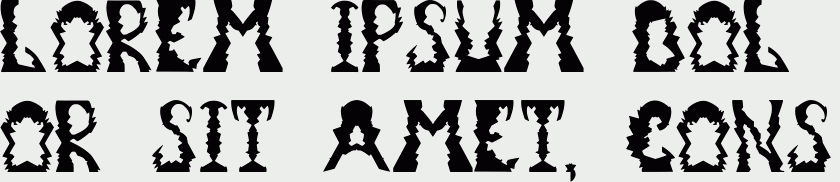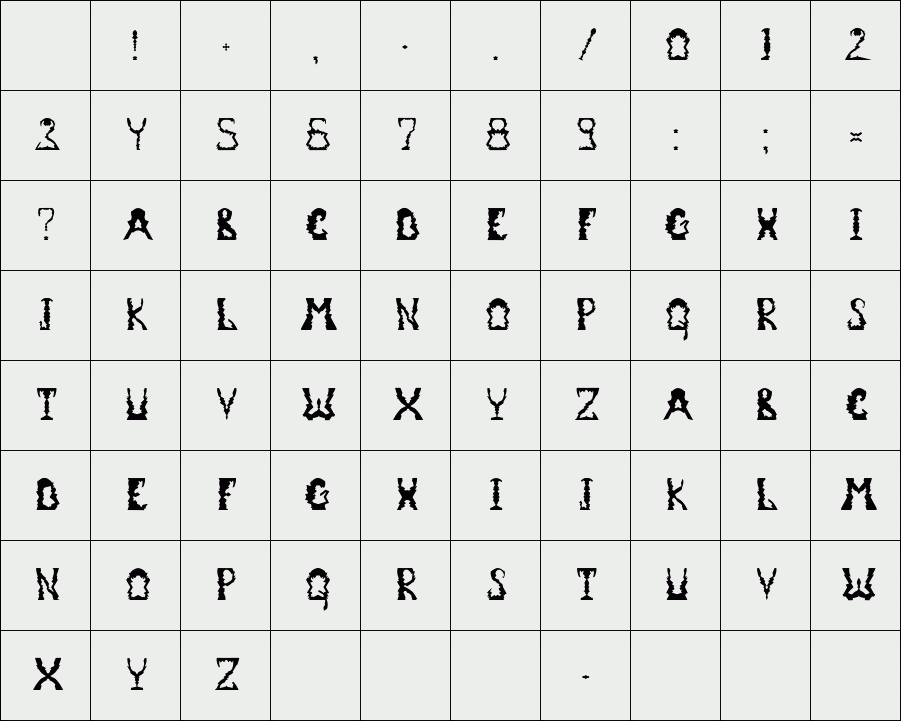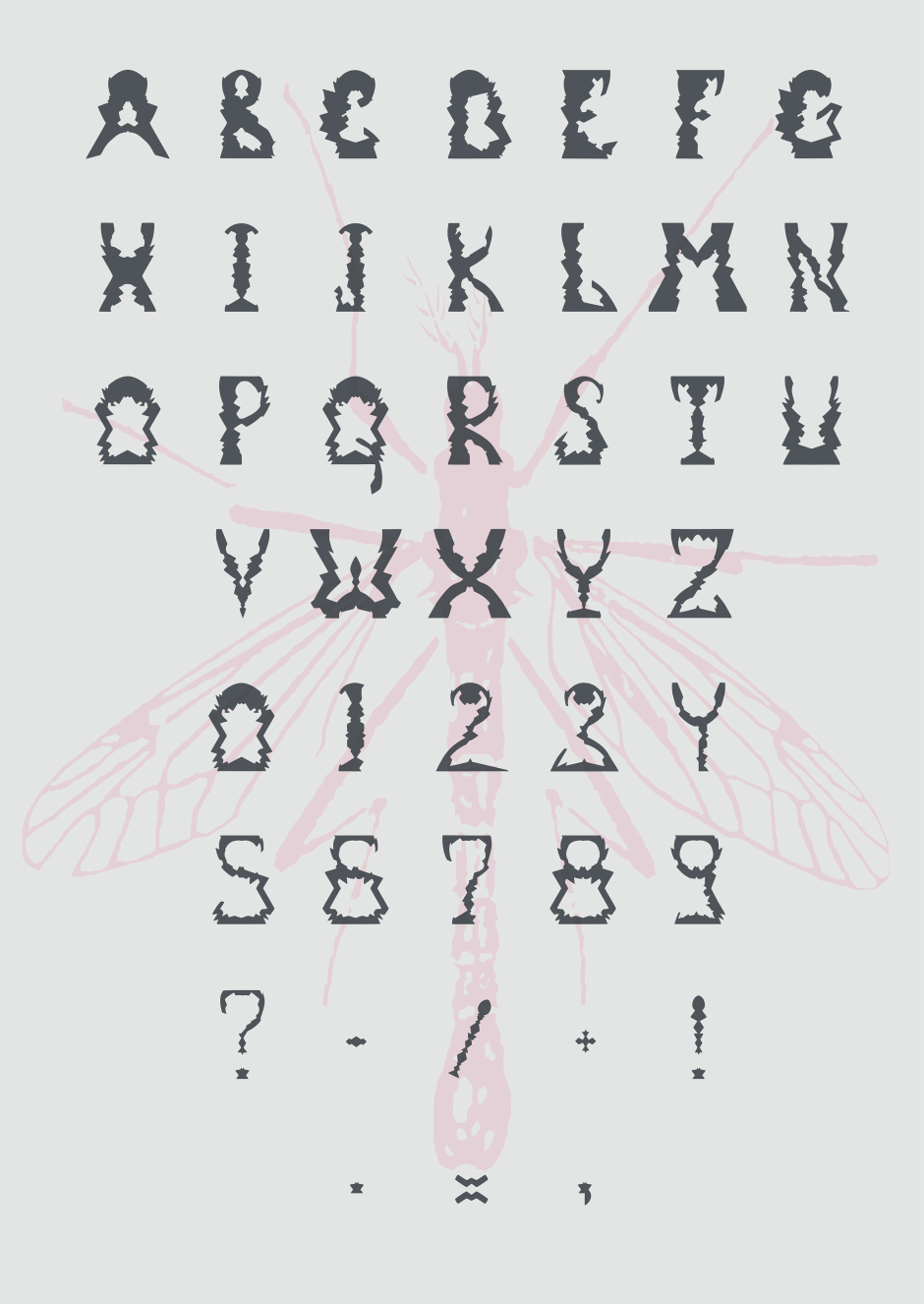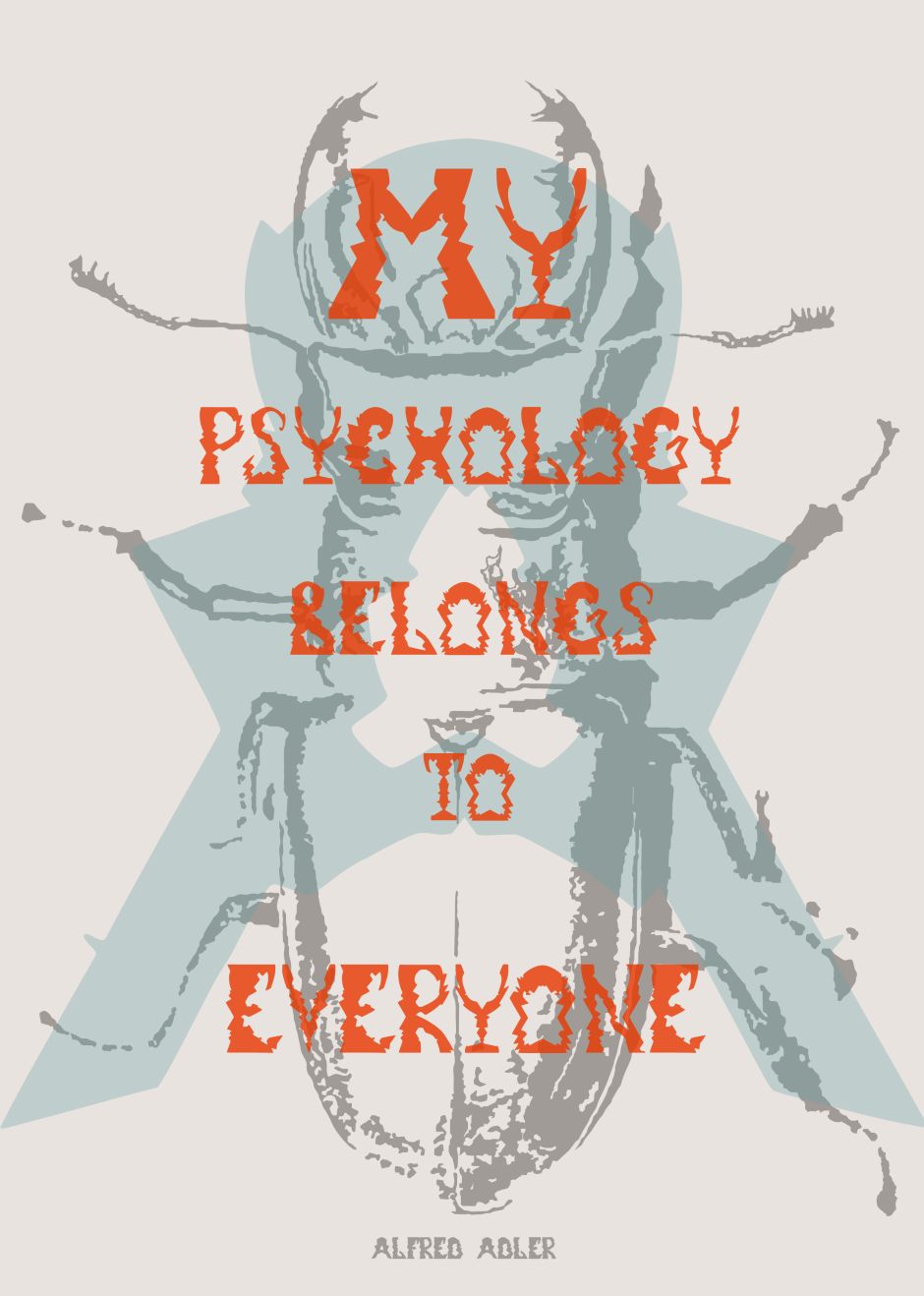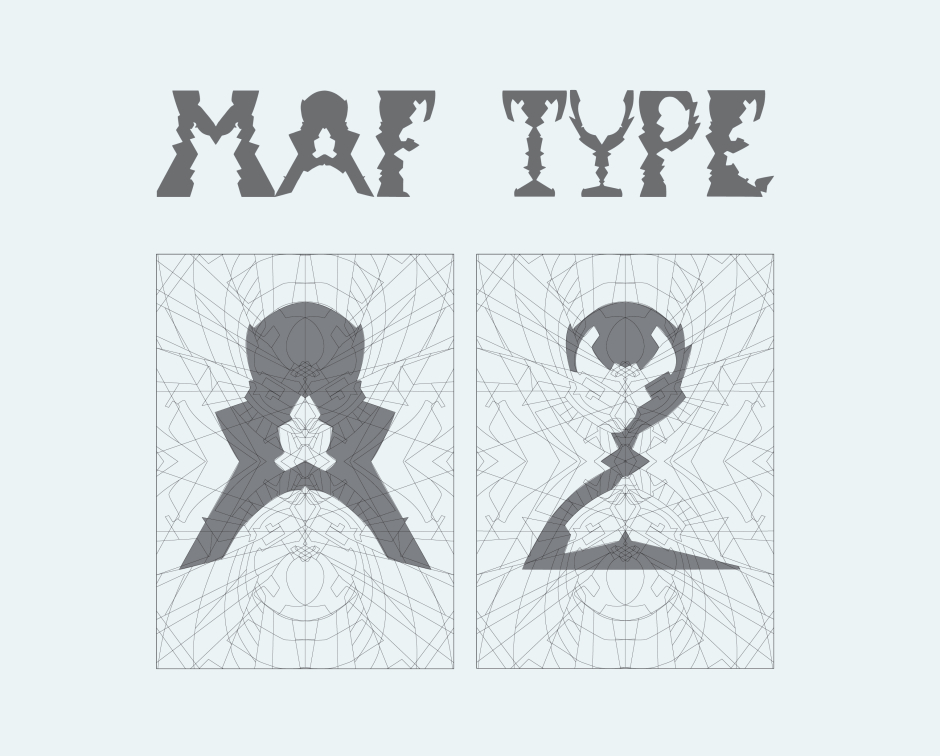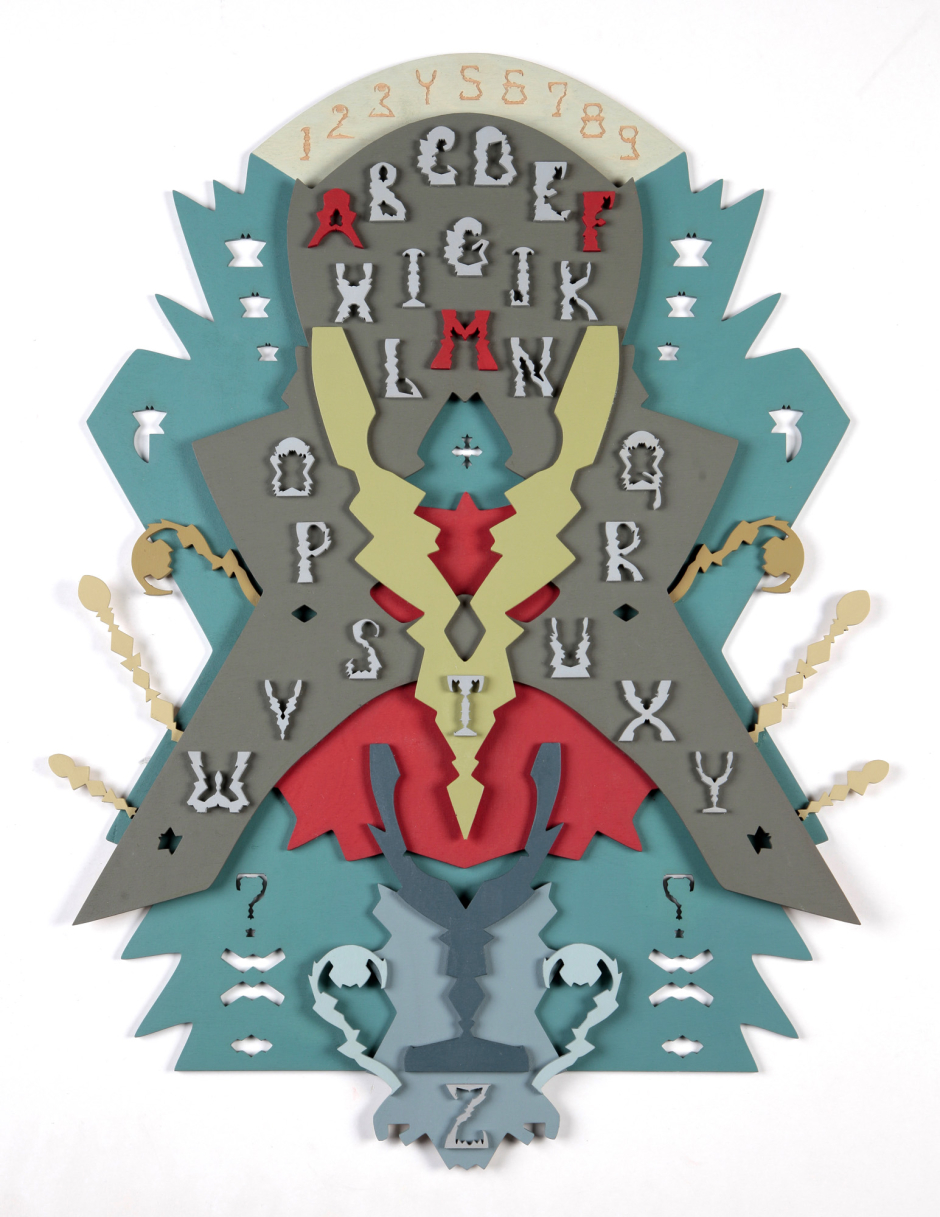
MAF TYPE
MAF TYPE has a psychological tone of voice with whimsical shapes of glyphs. It is monospaced, uppercase with numbers and special characters.
Designer: Maria Freydina